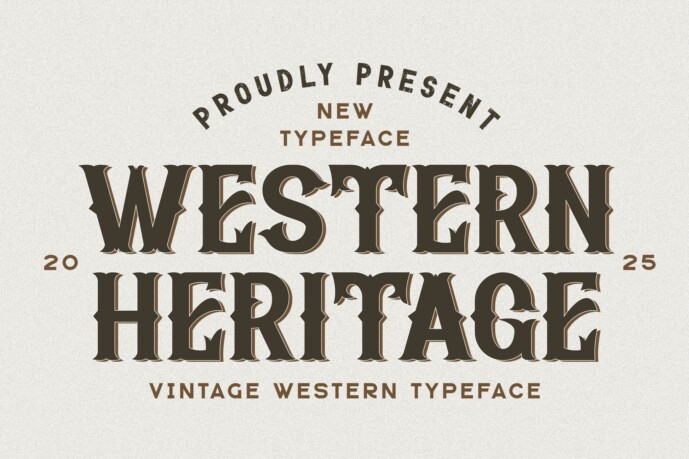
Western Heritage Font
Western Heritage is a vintage western display font, inspired by classic western-style logo typography. Designed to bring a bold and rugged aesthetic, this font is perfect for logotypes, advertisements, photography watermarks, stationery, branding projects, displays, magazines, game designs, invitations, corporate identities, product packaging, labels, and business projects.
• Standard glyphs with a complete character set
• Supports numbers & punctuation